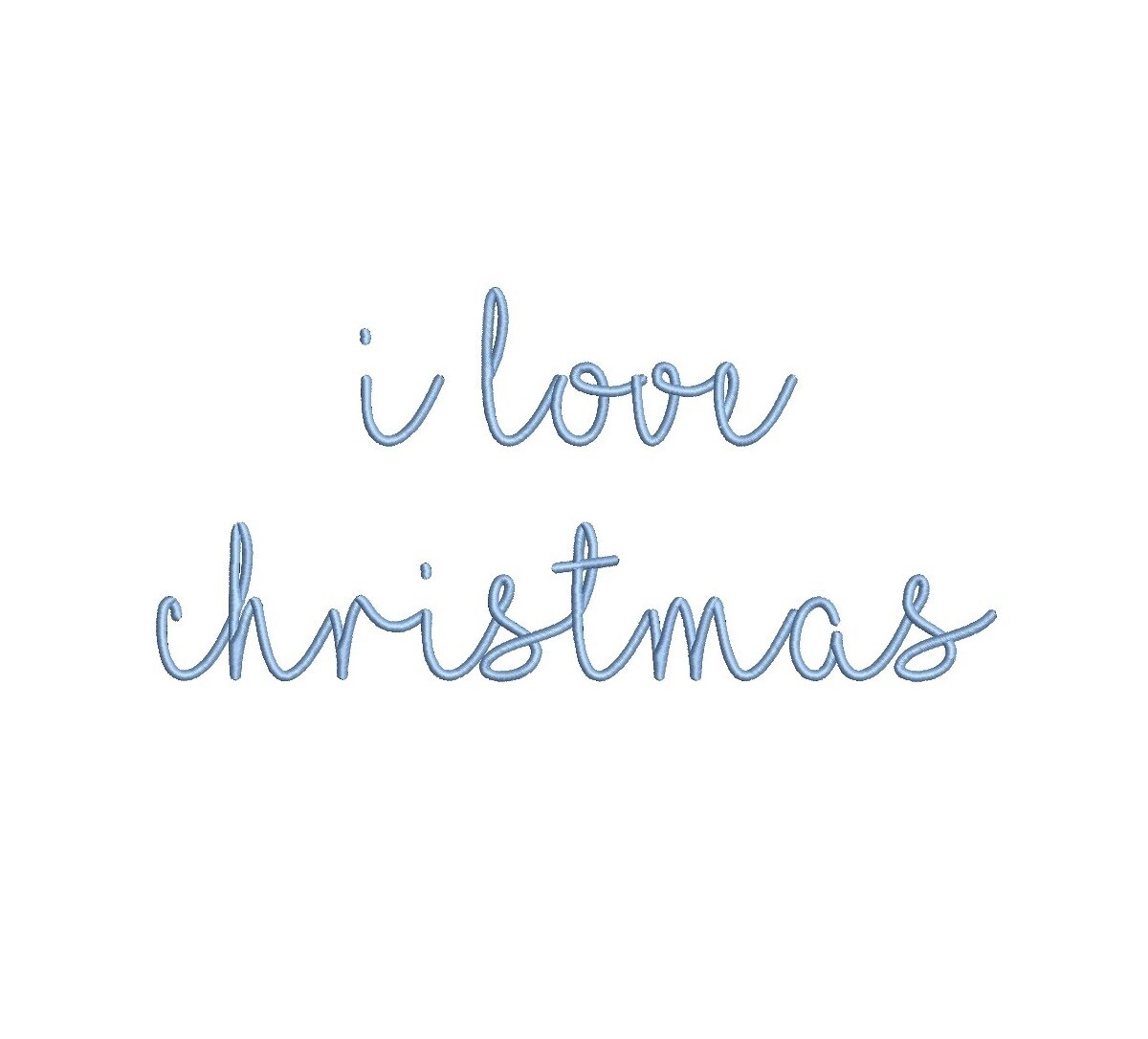
Celebrate the magic of Christmas with I Love Christmas Regular ESA font. This festive and joyful typeface brings holiday cheer to your designs. Crafted with meticulous attention to detail, this premium font ensures a seamless and enjoyable design experience. Compatible with Wilcom Studio e4.5.6 and Hatch 3 versions and up, it guarantees smooth embroidery creation. Whether it's Christmas cards, holiday invitations, or seasonal decorations, I Love Christmas Regular ESA font captures the essence of the most wonderful time of the year. Embrace its merry allure and create designs that spread joy and warmth. Get it now and make this Christmas truly special.